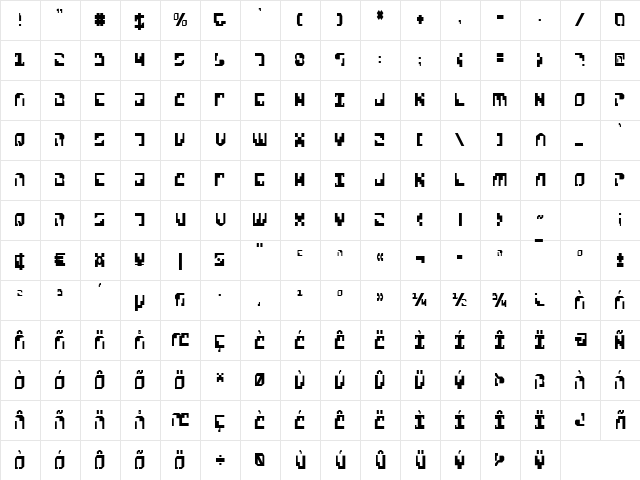
Xenophobia Condensed Condensed
Design Context for Xenophobia Condensed Typeface
Xenophobia Condensed is a composed and adaptable typeface that performs quietly and consistently across a wide range of design contexts. Its narrow stance lets it pack a punch even in space-constrained designs.